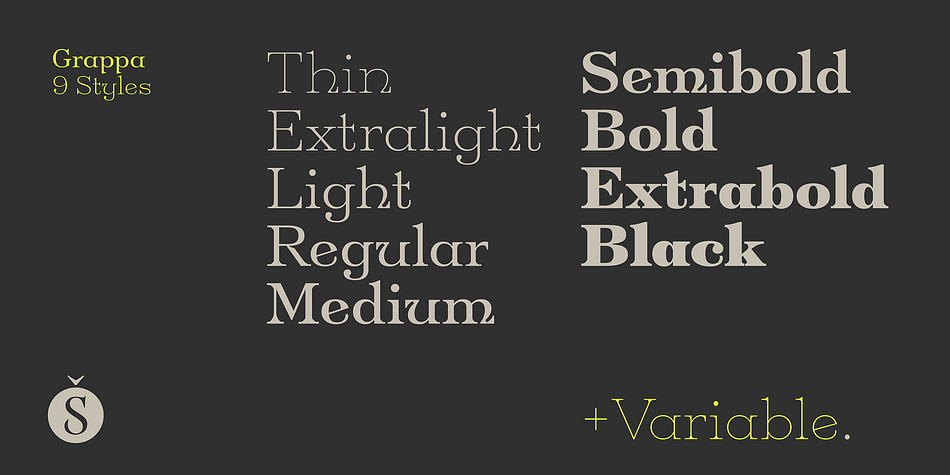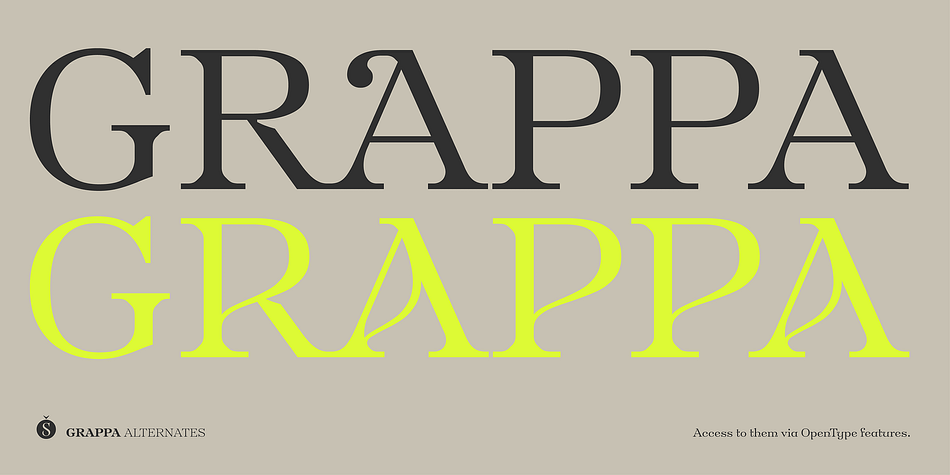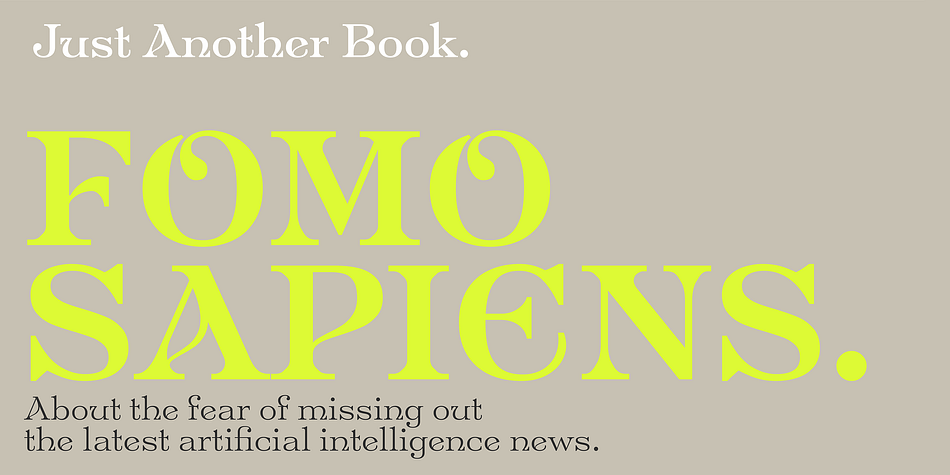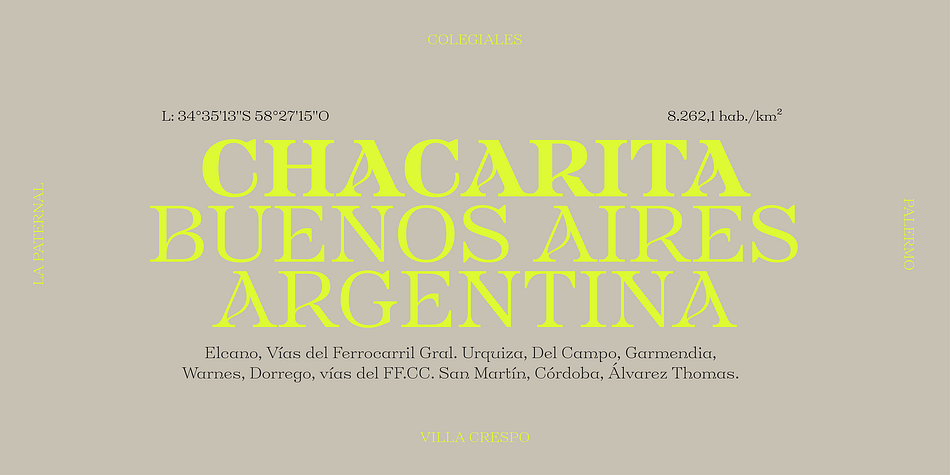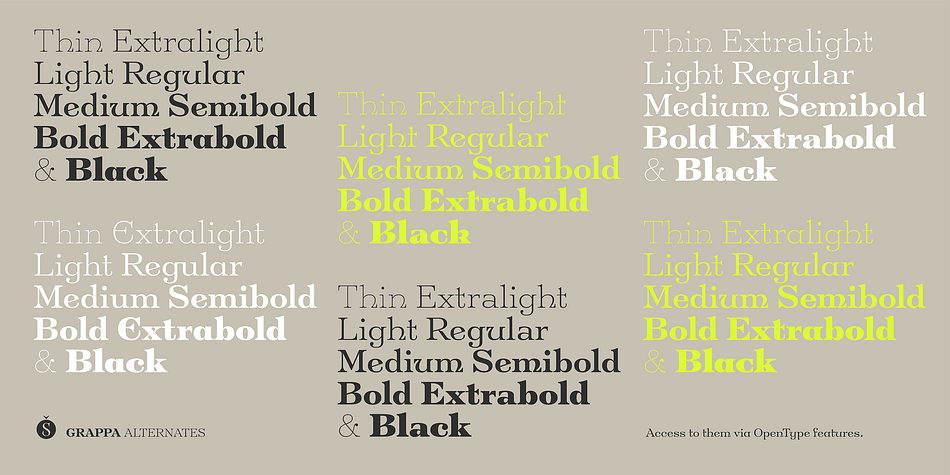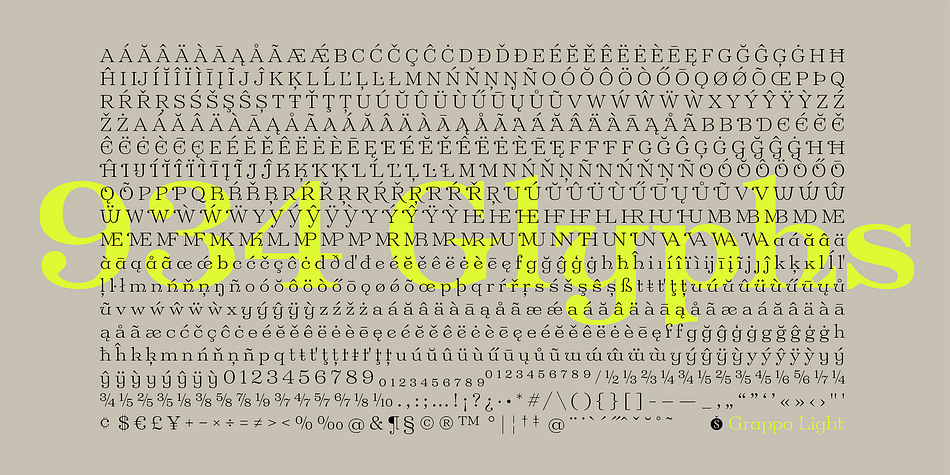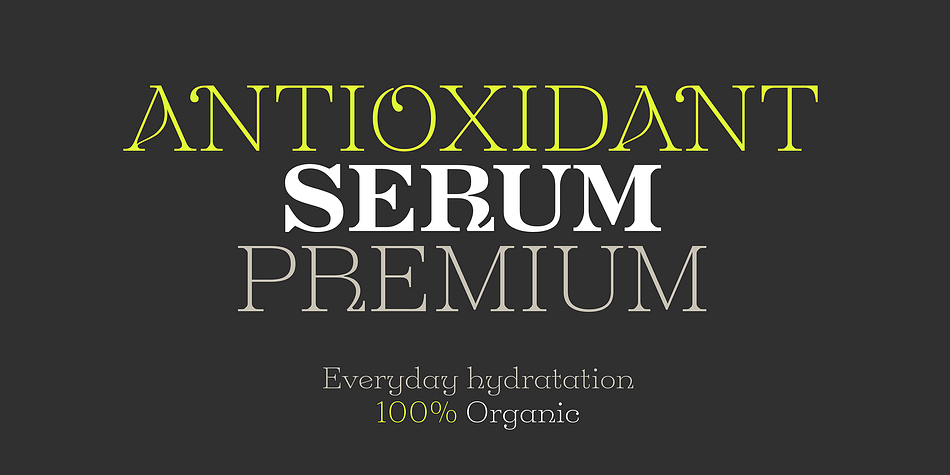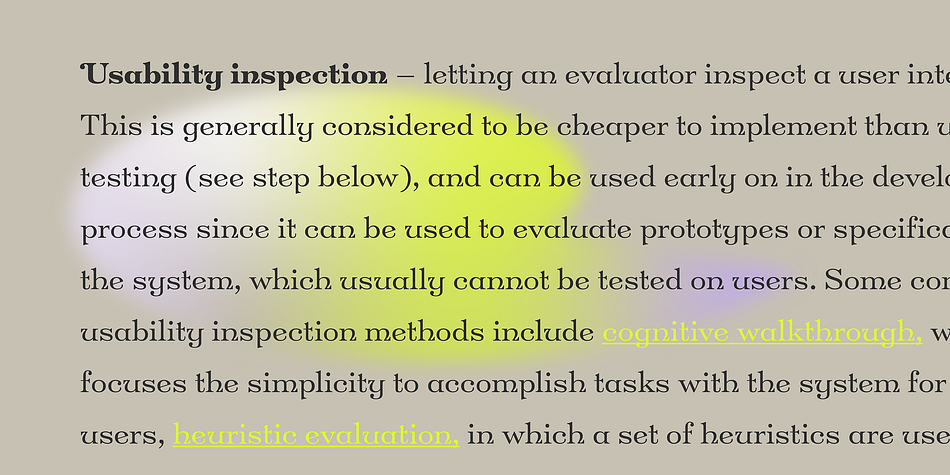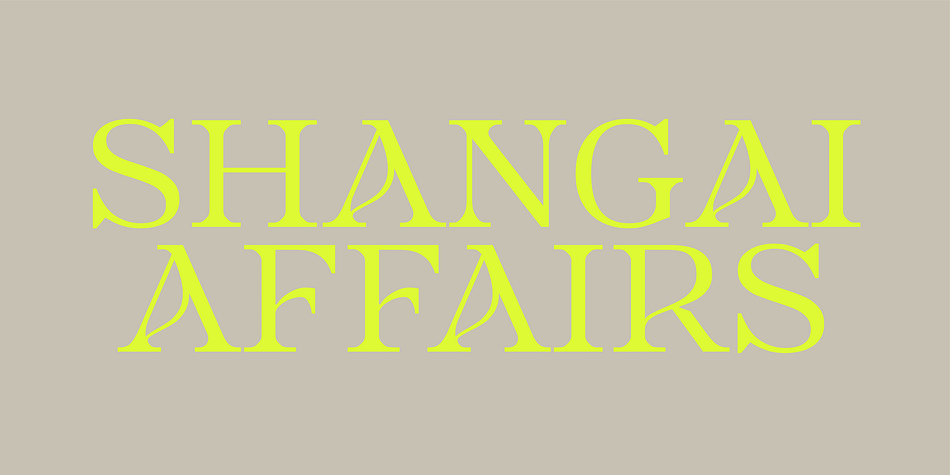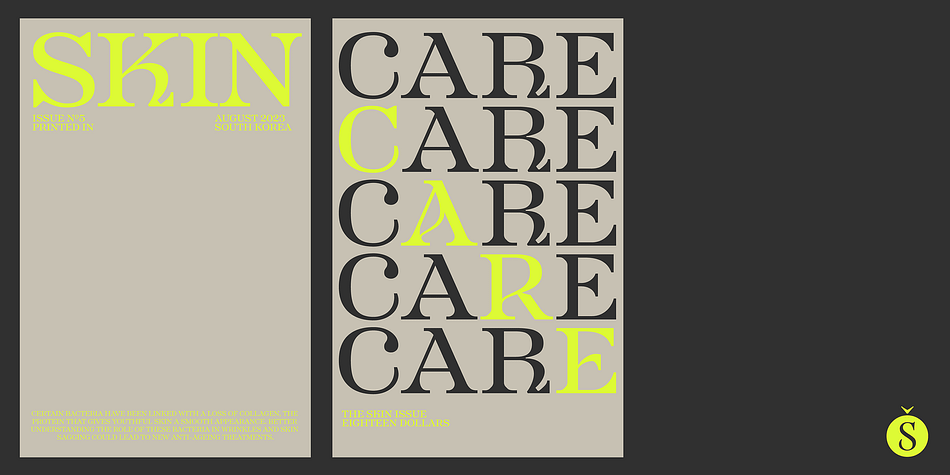
Grappa
Designed by Alejandro Paul, Grappa is a serif font family. This typeface has twenty styles and was published by Sudtipos.
Grappa, a traditional Italian spirit with a rich history, shares much in common with typefaces - both embody cultural heritage, craftsmanship, and a sensory experience. Grappa is distilled from the skins, pulp, seeds, and stems left over from winemaking, resulting in a strong and aromatic drink that varies in flavor based on the grape and distillation process. Similarly, typefaces are designed characters that convey a unique style, weight, and form, communicating messages and expressing ideas through text.
We are thrilled to introduce Grappa, a stunning new font based on the classic “Invitation” typeface by Morris Fuller Benton, a renowned American designer. Grappa features nine weights and a variable font that offers greater customization, with unique triangle serifs that give it a distinct edge. The font also comes with a variety of alternates and swash characters, including a second version with modified alternate characters for even more design flexibility.
Like Grappa, typefaces evoke emotions and cultural associations, often associated with specific historical periods, artistic movements, and contexts. Whether used in stationery, packaging, editorial design, or branding, Grappa is a versatile and timeless font that can add elegance and sophistication to any project.
In conclusion, Grappa is an excellent addition to any designer’s toolkit, offering a perfect blend of tradition and modernity. The font’s distinctive personality and cultural connotations make it a beloved drink in Italy, and a font that can effectively communicate messages and ideas through text.
Designer Alejandro Paul